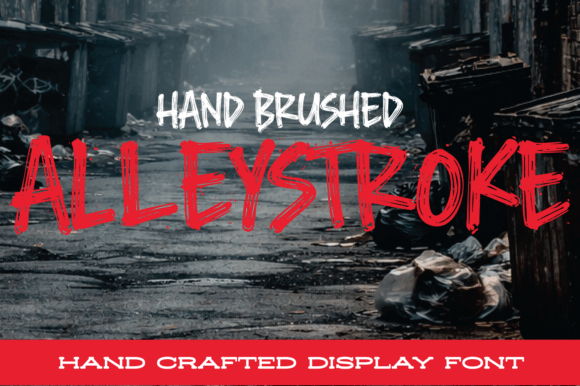
The Unbridled Energy of Alleystroke Font
I’ll never forget the design project that led me to Alleystroke Font. I was working on a bold poster for a local music festival, and I needed a font that could capture the raw energy of the event. I spent hours scouring the internet for the perfect font, but nothing seemed quite right. That was until I stumbled upon Alleystroke. Its rough edges, organic inconsistencies, and natural flow immediately drew me in. I knew I had found the perfect fit.
A First Impression: Honest Review
Alleystroke Font is a game-changer for designers, crafters, and creative hobbyists looking to add some attitude to their projects. Here’s what I love about it:
- ✨ Authentic hand-painted look: Alleystroke delivers an unpolished, alive feel that’s perfect for bold headlines, branding, and posters.
- ✅ Rough edges and organic inconsistencies: These quirks give the font its unique character and make it feel like a genuine, hand-painted piece.
- ✅ Natural flow: The font’s natural flow makes it easy to read and adds to its overall authenticity.
Of course, no font is perfect, and Alleystroke has a few small quirks:
- 🤔 Limited use in formal contexts: Alleystroke’s rough, unpolished nature makes it less suitable for formal projects or body text.
- ⚠️ Glyph coverage: While the font has a wide range of glyphs, some users may find that it lacks certain special characters.
Alleystroke Font was inspired by the raw energy of street art and the urban landscape. Its designer, a typography enthusiast, wanted to create a font that captured the unbridled energy of back alleys, quick tags, and unapologetic strokes. The result is a font that’s perfect for designers, crafters, and creative hobbyists looking to add some attitude to their projects.
| Font Name | Alleystroke Font |
| Author | stompstock |
| What is Alleystroke Font best used for? | Alleystroke Font is best used for bold headlines, branding, posters, and any project that needs attitude. |
| Is Alleystroke Font suitable for body text? | No, Alleystroke Font is not suitable for body text due to its rough, unpolished nature. |
| Does Alleystroke Font support OpenType features? | Yes, Alleystroke Font supports OpenType features, including stylistic alternates and glyphs. |